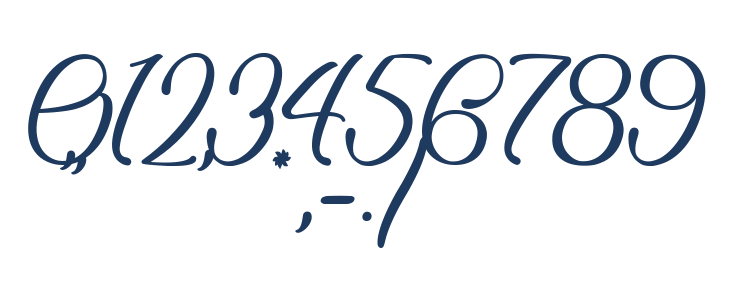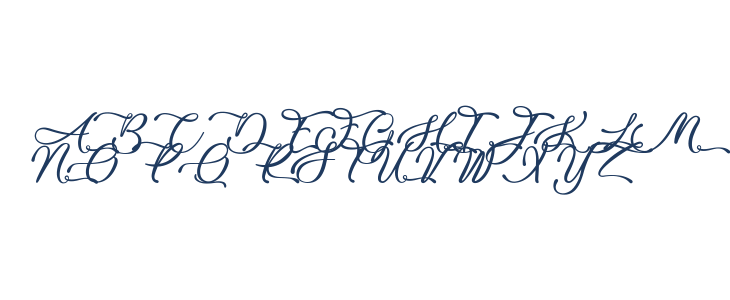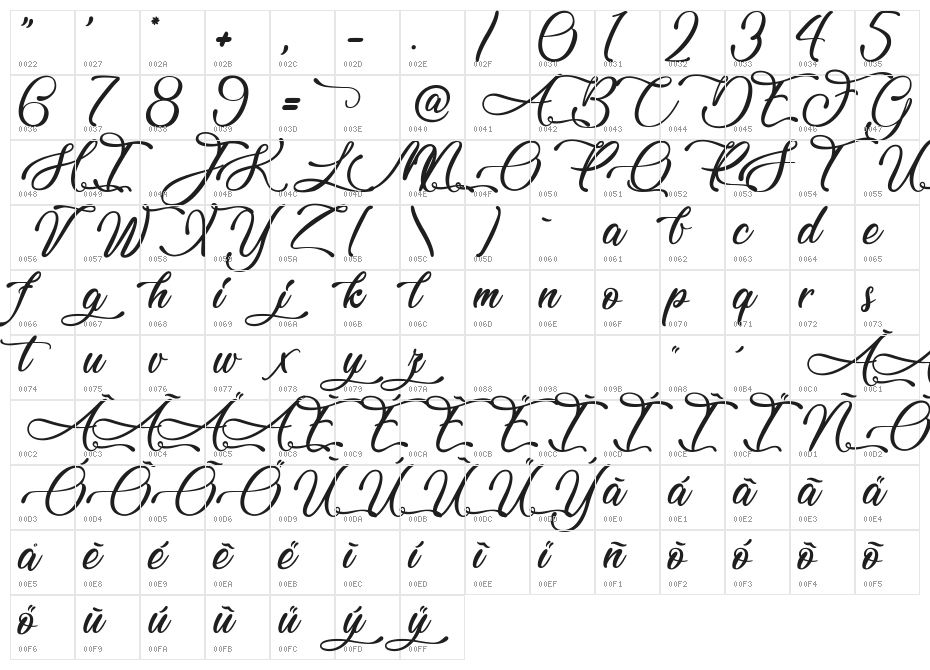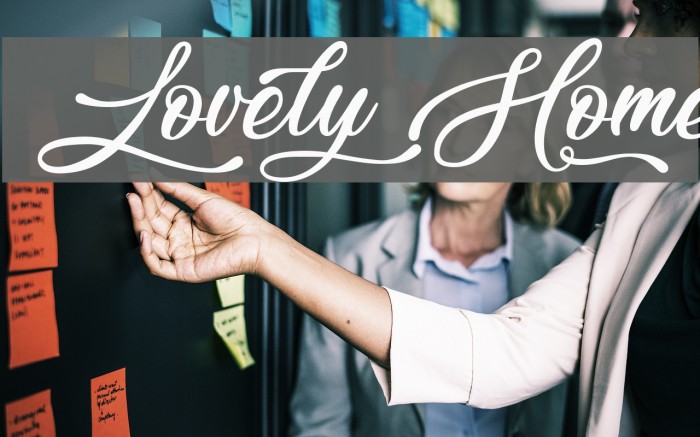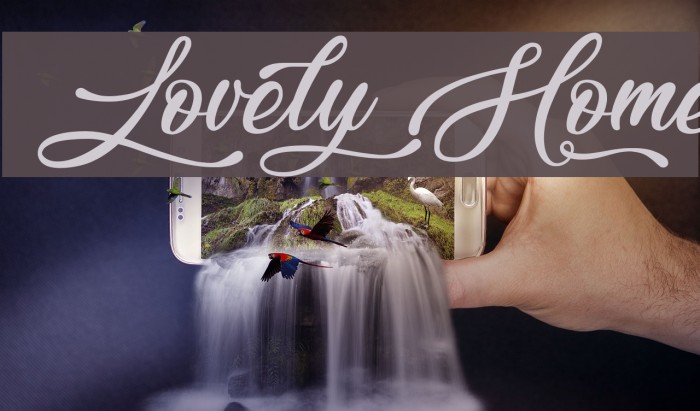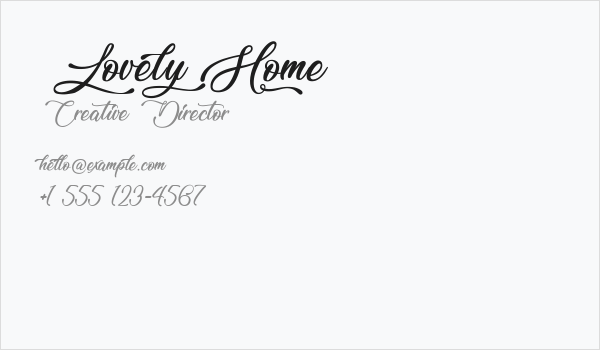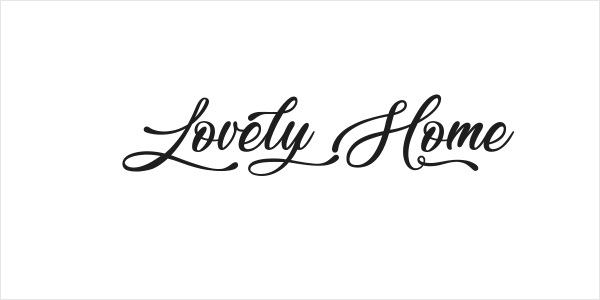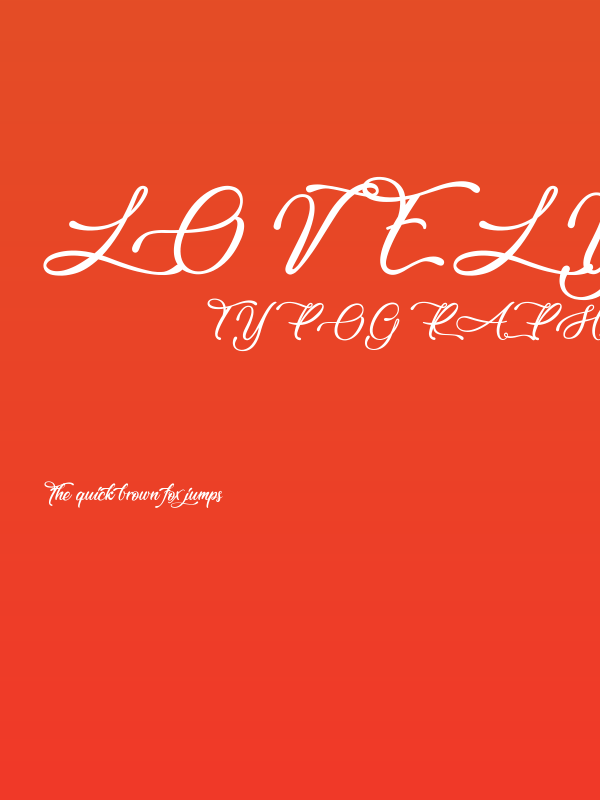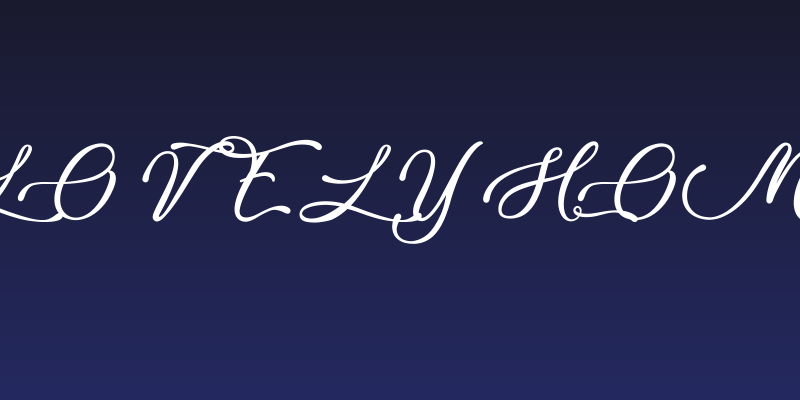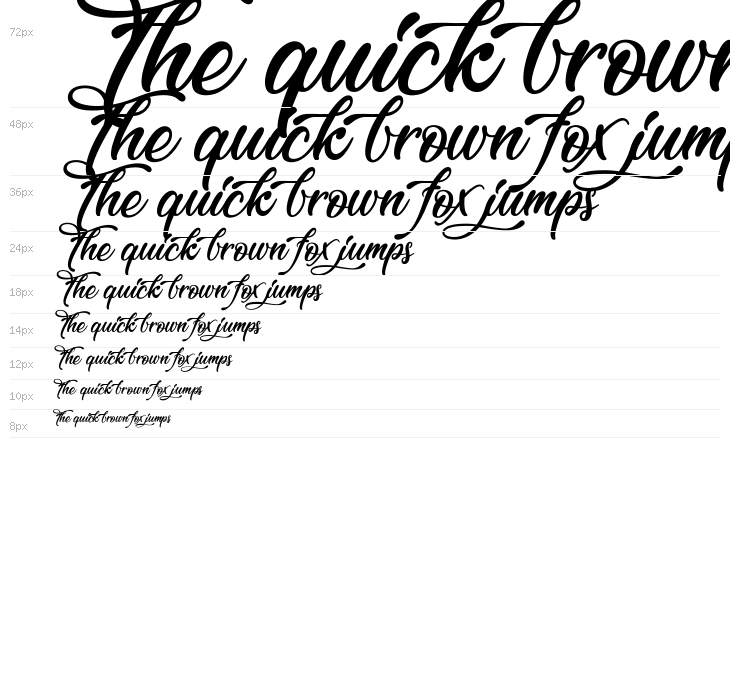
Lovely Home Font
Lovely Home Description
This font features an elegant and flowing script style, characterized by its intricate swirls and loops. The uppercase letters are particularly ornate, with extended flourishes that add a touch of sophistication and grace. The lowercase letters maintain a consistent style, with smooth curves and a slightly bold appearance that ensures readability. The numerals are designed to match the overall aesthetic, with a balanced mix of curves and straight lines. Special characters are included, each crafted with the same attention to detail, making this font versatile for various design needs.
| Proposed Projects | Ideal for wedding invitations, luxury branding, greeting cards, and elegant packaging designs. |